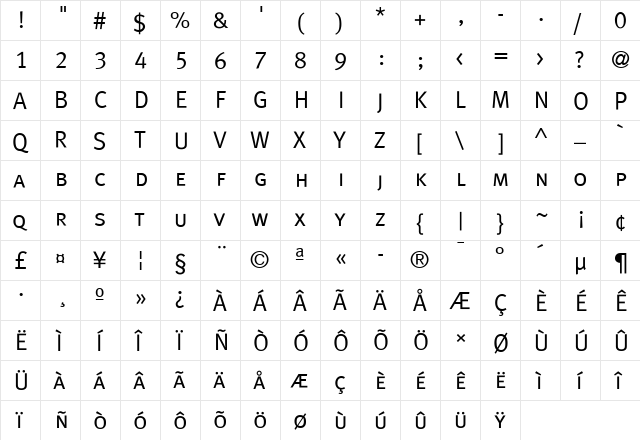
Meta-Caps Medium
| Foundry | Copr. Erik Spiekermann FontShop International |
Design Context for Meta-Caps Typeface
Meta-Caps offers clean, dependable letterforms without strong stylistic allegiance, making it a practical choice for designers who need flexibility.